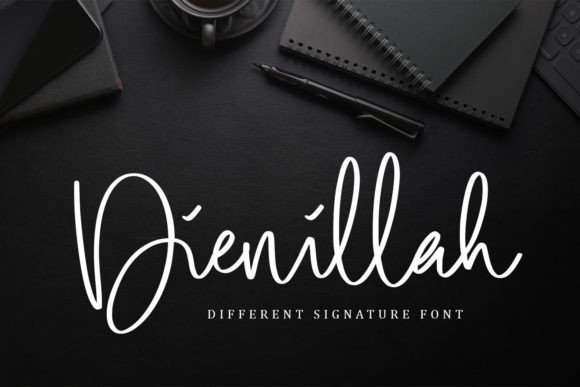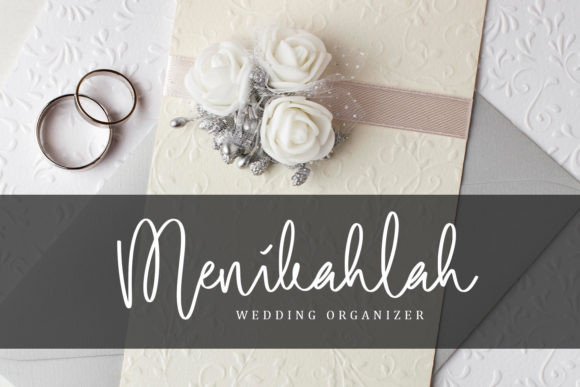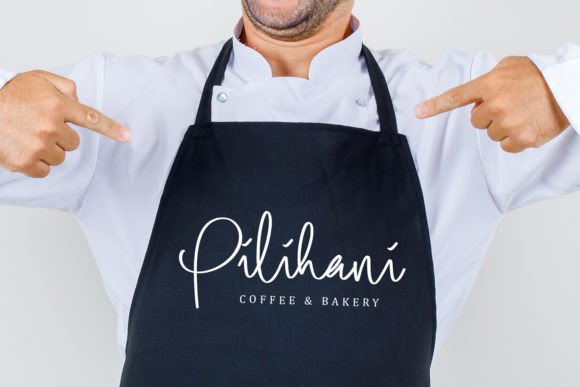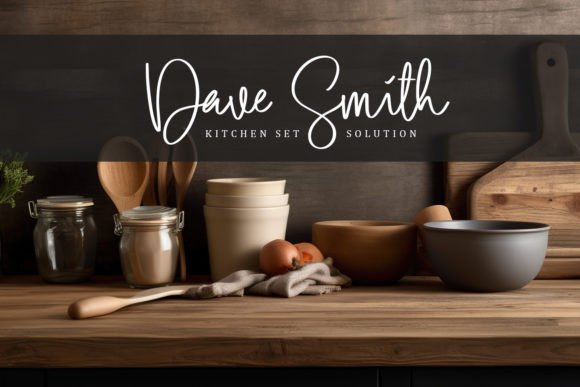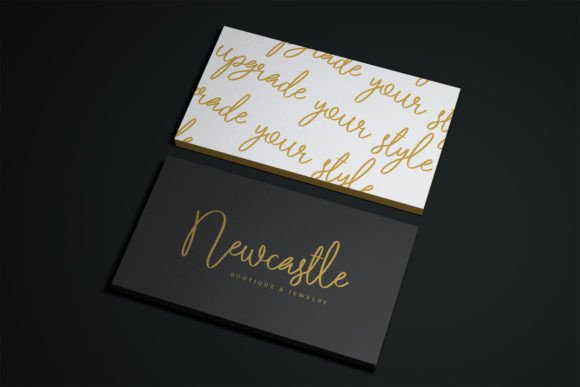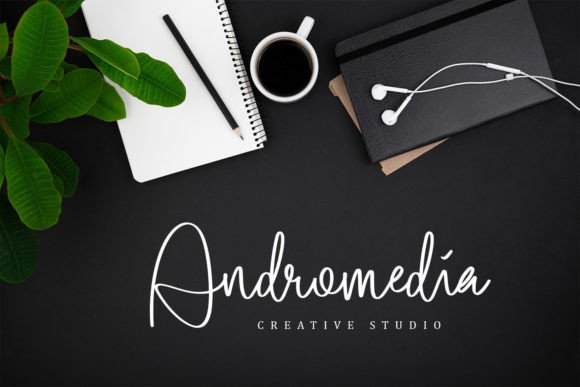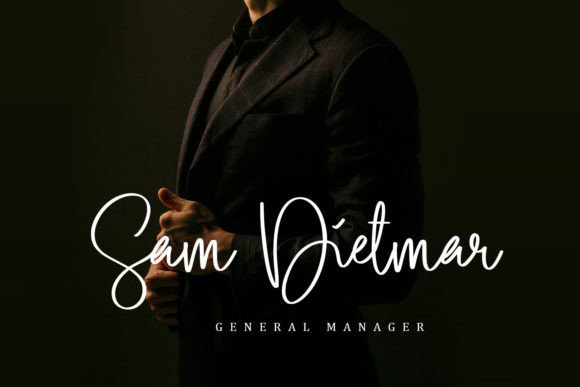
Meet Your New Signature Style
Have you ever sat down with a blank piece of paper, a pen, and a blank mind, only to find yourself lost in a world of creative possibilities? For designers, this moment is all too familiar. The blank canvas is a daunting yet exciting challenge, waiting to be filled with innovative ideas and fresh perspectives.
Introducing the Dienillah Font, a beautiful signature font designed to bring your brand to life. This versatile font is perfect for branding, quotes, logos, t-shirt designs, tote bag designs, cards, banners, social media, and more. With its wide range of features, including uppercase, lowercase, numeral, ligatures, multilingual support, punctuation, and PUA encoding, the Dienillah Font is a valuable addition to any designer’s toolkit.
Dienillah Font Key Features
- Font Family: Dienillah is a modern script font designed to create elegant and sophisticated text.
- Unique Characteristics: Dienillah features flowing connections, subtle flair, and a touch of elegance, making it perfect for wedding invitations, branding, and packaging design.
Dienillah Font Review
I recently had the chance to work with the Dienillah Font, and I must say it’s an interesting addition to any design project. Here are my thoughts on what works well and what doesn’t.
- Unique aesthetic: The Dienillah Font has a distinct, hand-drawn feel that can add a touch of personality to your designs.
- Good legibility: While it’s not a clear, sans-serif font, the Dienillah Font is still easy to read, even at smaller font sizes.
- Wide language support: I was impressed to find that the font supports a wide range of languages, including many non-Latin scripts.
- Font size limitations: While the font looks great at medium to large font sizes, it can become pixelated and lose its charm at very small sizes.
- Limited customization options: If you’re looking for a high degree of control over the font’s appearance, you may find the Dienillah Font lacking.
The Dienillah Font is a solid choice for designers looking for a unique, hand-drawn font. While it may not be perfect for every project, it’s definitely worth considering for designs where you want to add a touch of personality. Just be mindful of the font size limitations and lack of customization options.
Dienillah Font is ideal for:
- Photography captions and quotes
- Brand logos and identity designs
Q: Is the Dienillah Font optimized for high-resolution displays?
Yes, the Dienillah Font is designed to be highly legible on high-resolution displays, including Retina and 4K screens. The font’s design and rendering are optimized to take advantage of modern display technologies, ensuring that text remains clear and readable even at very small font sizes.